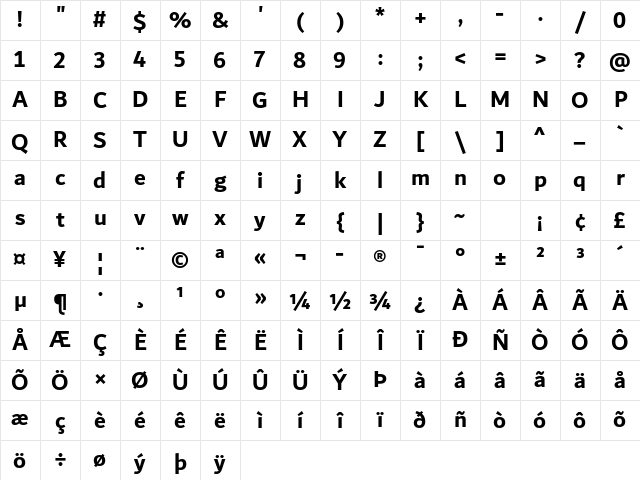
Dubai Bold
Foundry: Monotype Imaging Inc.
Designer: Monotype Design Studio
Dubai Family
Design Context for Dubai
Dubai is a composed and adaptable typeface that performs quietly and consistently across a wide range of design contexts. Its bold stroke weight gives it real presence on the page.